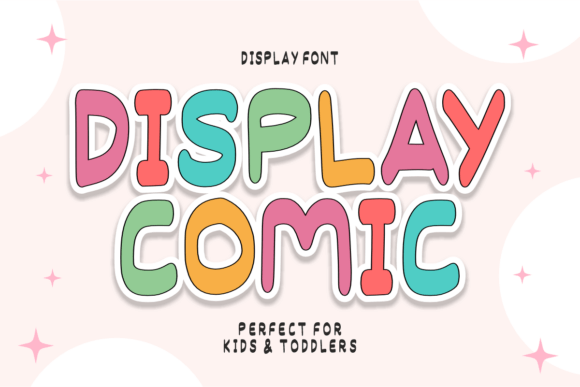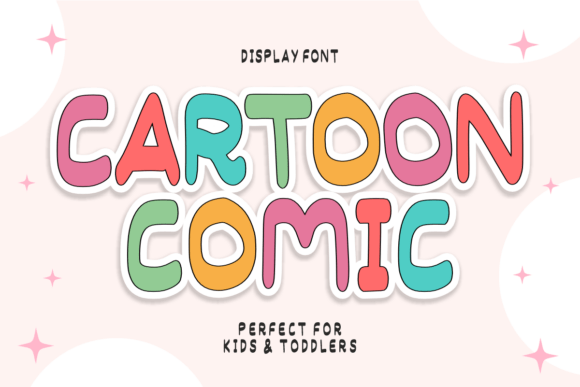
Unlock the Joy of Childhood in Your Designs
Do you remember the thrill of creating handmade cards for your little ones or decorating their room with colorful stickers? Those moments are etched in our hearts, and it’s no wonder we want to recreate that magic in our creative projects. For designers who want to infuse their work with a touch of innocence and playfulness, the Kids Handwritten Font is a game-changer.
This adorable font is designed specifically for children and toddlers, with soft, rounded shapes and an organic “hand-drawn” feel that captures the essence of childhood. Its bold and easy-to-read design makes it perfect for a variety of projects, from educational materials and classroom decor to personalized gifts and party themes. Whether you’re a crafter, teacher, or parent, the Kids Handwritten Font is a valuable addition to your design arsenal, guaranteed to bring a smile to your face and a twinkle to your designs.
Kids Handwritten Font Key Features
- Font Style: A playful, childlike handwritten font suitable for creating a friendly and approachable atmosphere.
- Unique Characteristics: The font’s handwritten style features imperfections, such as uneven line widths and subtle variations in letterforms, giving it a personal and handcrafted feel.
Kids Handwritten Font Review
I’ve had the chance to work with the Kids Handwritten Font, and I must say it’s a unique and fun addition to any design project. Here’s what I think works well:
- ✨ The font is incredibly playful and engaging, perfect for kids’ projects or any design that needs a touch of whimsy.
- ✨ The font’s imperfections and irregularities give it a handmade feel, which can be really effective for creating a sense of authenticity.
- ✨ The font is highly customizable, with a wide range of styles and variations to choose from.
However, there are a few limitations I’ve encountered:
- ⚠️ The font can be a bit difficult to read in smaller sizes, which may limit its use in certain design contexts.
- ⚠️ The font’s irregularities can also make it challenging to use in situations where a high level of precision is required.
- ⚠️ Some of the font’s styles may feel a bit overused or clichéd, which could detract from its overall impact.
Overall, I think the Kids Handwritten Font is a great choice for designers who want to add a playful touch to their projects. While it may have some limitations, its unique charm and customization options make it a valuable addition to any design toolkit.
Use the “Kids Handwritten Font” for:
- Children’s book covers and illustrations.
- Party invitations and decorations.
- Handmade cards and gift tags.
For the best results, use the font in conjunction with bright colors and playful graphics.
Comparison to Kids Handwritten Font: Lobster Font has a more elegant and sophisticated look compared to Kids Handwritten Font, which is more playful and childlike. While Kids Handwritten Font is ideal for casual and informal designs, Lobster Font is better suited for formal and luxurious designs.
Q: What is the recommended font size for using the Kids Handwritten Font?
The Kids Handwritten Font is designed for use at font sizes ranging from 12pt to 48pt. For optimal legibility, we recommend using font sizes between 18pt and 24pt for body text, and larger font sizes for headings and titles.